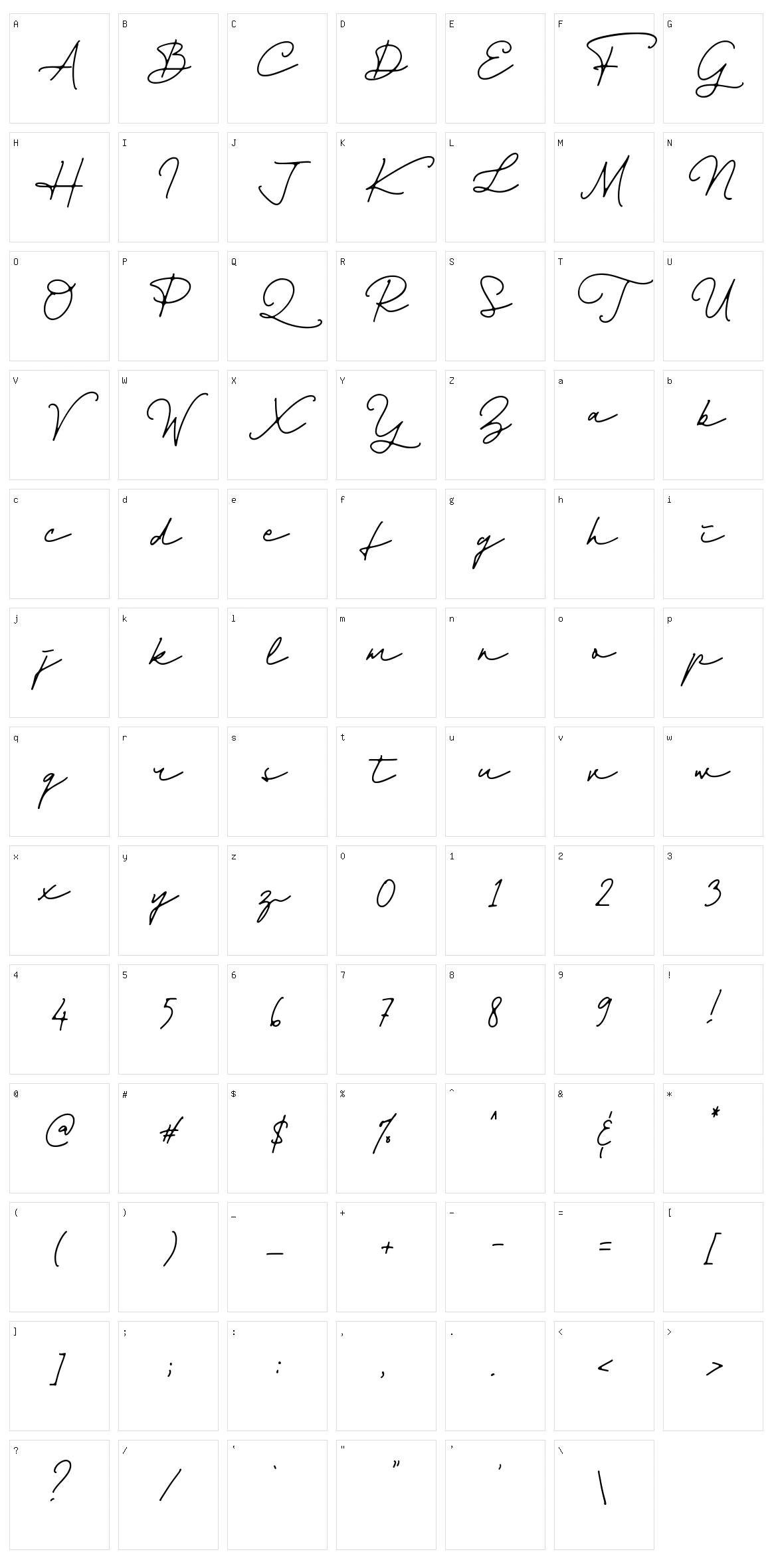
Dienilla
Designed by: Abo Daniel Studio
DIENILLA
- elegant signature font-
It comes with a lot of features :
- 3 weights (Thin, Regular, Bold)
- 2 styles of ending swash (all lowercase)